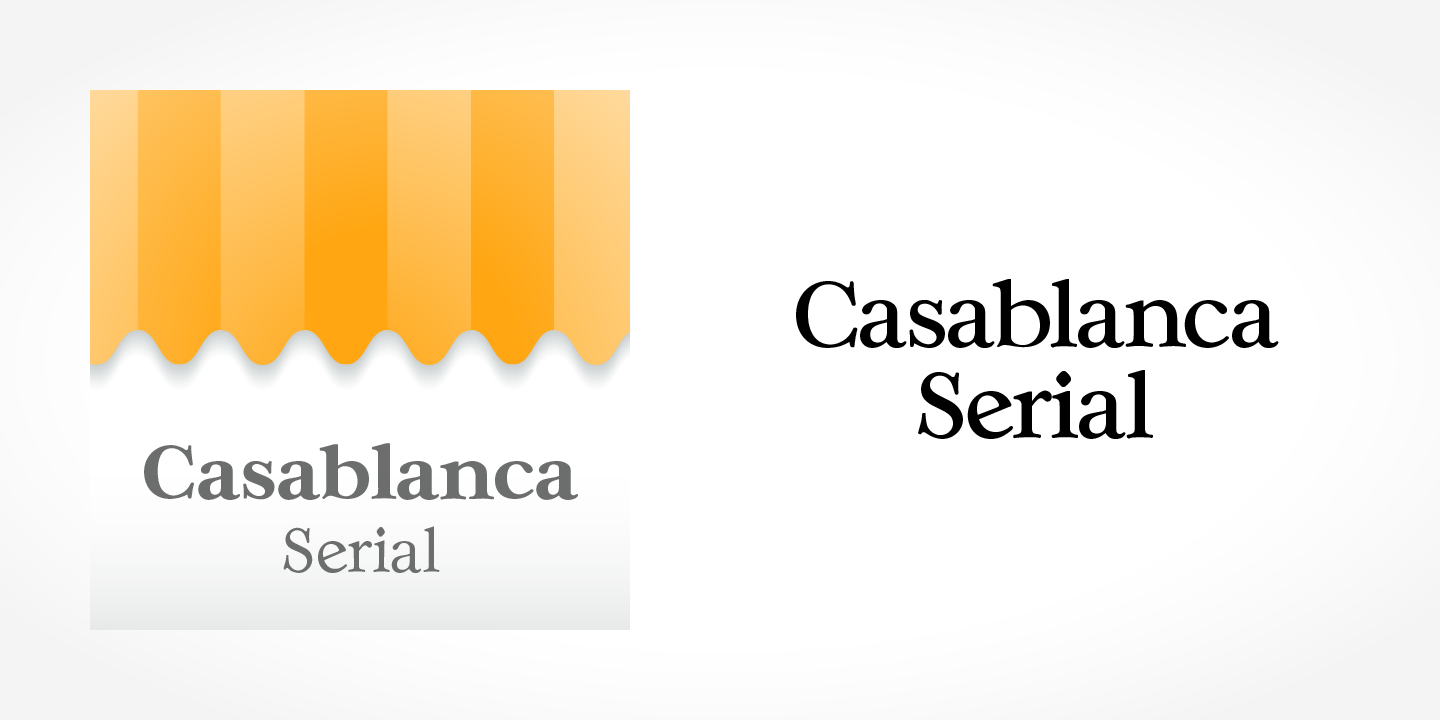
The Casablanca Serial Font is excellent for classic film festival posters, vintage cinema branding, golden age Hollywood materials, elegant speakeasy signage, retro jazz club promotions, sophisticated cocktail bar menus, art deco hotel materials, and timeless romance campaigns. This cinematic typeface works wonderfully in applications where classic Hollywood glamour and vintage sophistication need to be emphasized, making it perfect for entertainment venues that want to communicate timeless elegance and old-world charm through authentically nostalgic typography.
What makes Casablanca Serial Font exciting is its classic Hollywood mystique and vintage cinematic charm that captures the essence of golden age romance and timeless sophistication. The font's elegant letterforms and period-inspired character design create an atmosphere of classic movie magic and sophisticated entertainment, making it ideal for brands that want to evoke the glamour of vintage Hollywood and the romance of bygone eras. Its nostalgic presence ensures that every application feels like a scene from a classic film with authentic vintage appeal.
The Casablanca Serial Font family typically includes regular, bold, and italic variations, often featuring art deco elements, vintage movie motifs, and classic Hollywood symbols that enhance its cinematic authenticity. Many versions include film reel decorations, golden age ornaments, and specialized characters that provide designers with comprehensive tools for creating authentic vintage entertainment design projects with genuine classic movie sophistication and nostalgic elegance.
For designers working on projects that require vintage authenticity and classic Hollywood credibility, Casablanca Serial Font Free Download delivers exceptional nostalgic appeal. Its ability to instantly communicate timeless glamour and classic romance makes it an invaluable choice for entertainment venues, luxury brands, and any project requiring typography that embodies the magic of classic cinema, the sophistication of golden age Hollywood, and the enduring appeal of vintage elegance and romantic nostalgia.